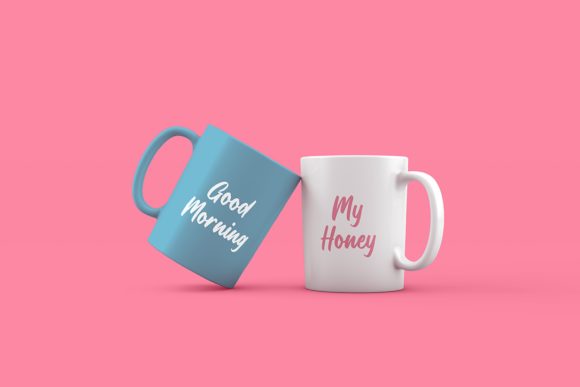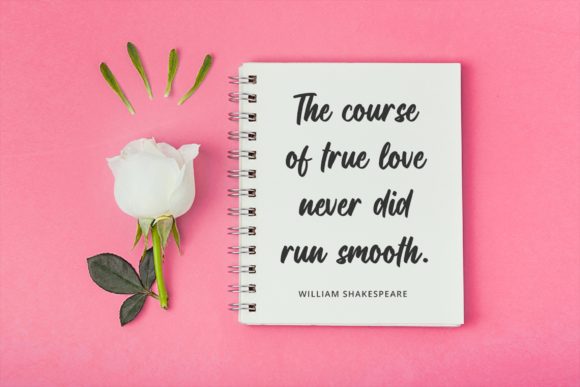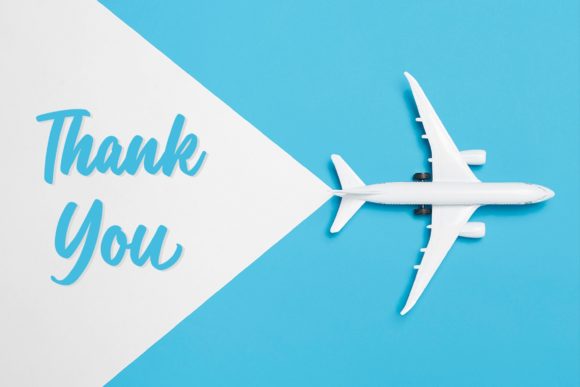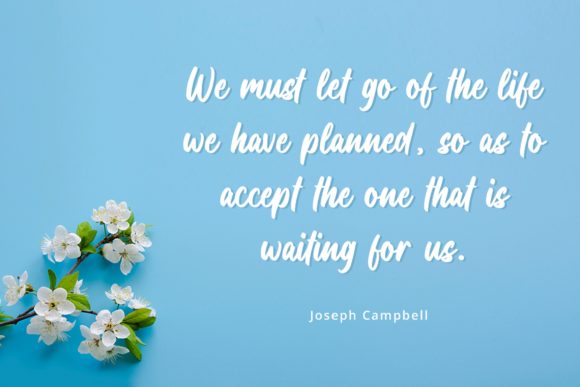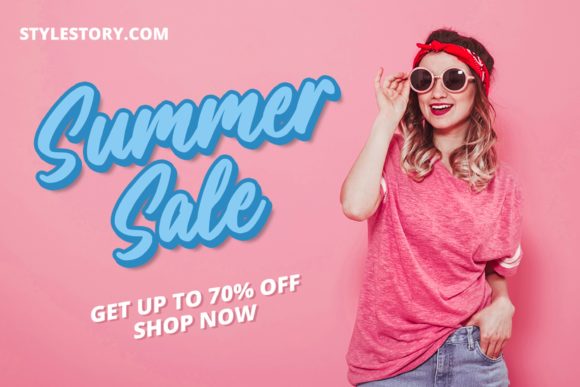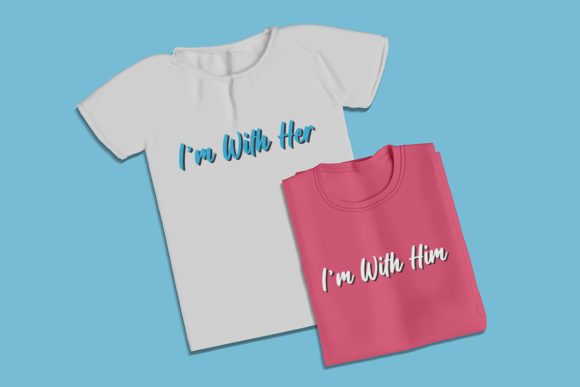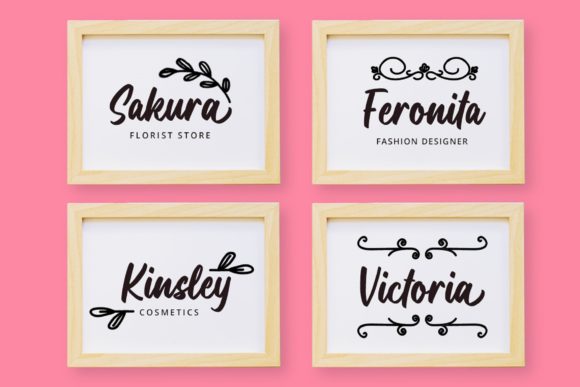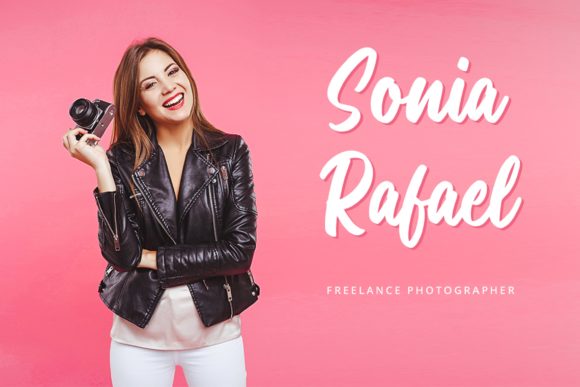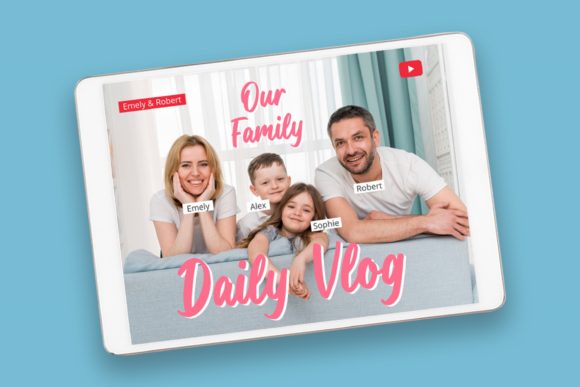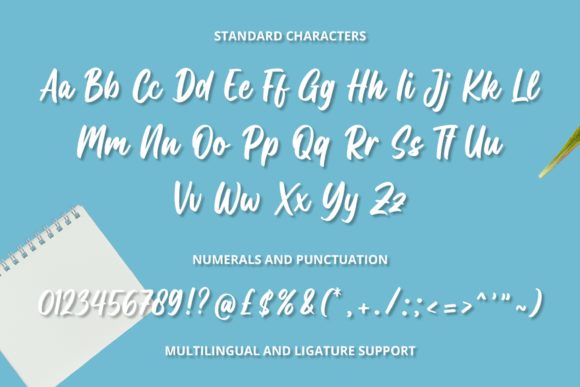
Hello Honey Font
About Hello Honey Font
Hello Honey is a bold script font. This fantastic typeface is best suited for headlines of all sizes, as well as for blocks of text that have both maximum and minimum variations. Use it to create standout headings, promote your online sales, Instagram quotes, business cards, t-shirts, and invitations.